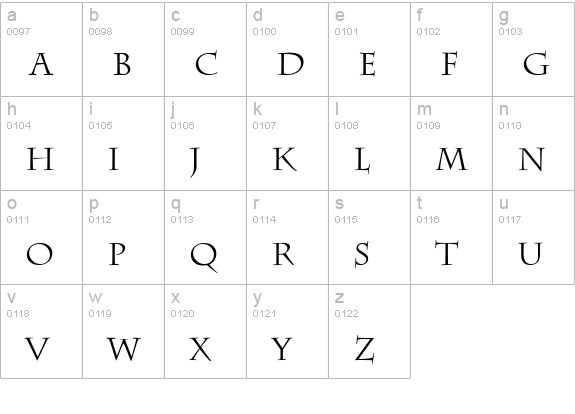
Centurio font is a stunning display typeface that exudes strength and elegance. With its bold lines and sharp angles, this font commands attention and makes a powerful statement. Ideal for headlines, logos, and other design projects that require a strong visual impact, Centurio font is sure to leave a lasting impression. What sets Centurio font apart is not only its striking design, but also the fact that it is available for free download at FontsMarket.com. This means that you can easily access and use this impressive font in your projects without any cost. Whether you're a professional designer looking for a unique typeface to elevate your work, or a hobbyist seeking to add a touch of sophistication to your creations, Centurio font is the perfect choice. Download it today and unleash the full potential of your designs with this remarkable font.